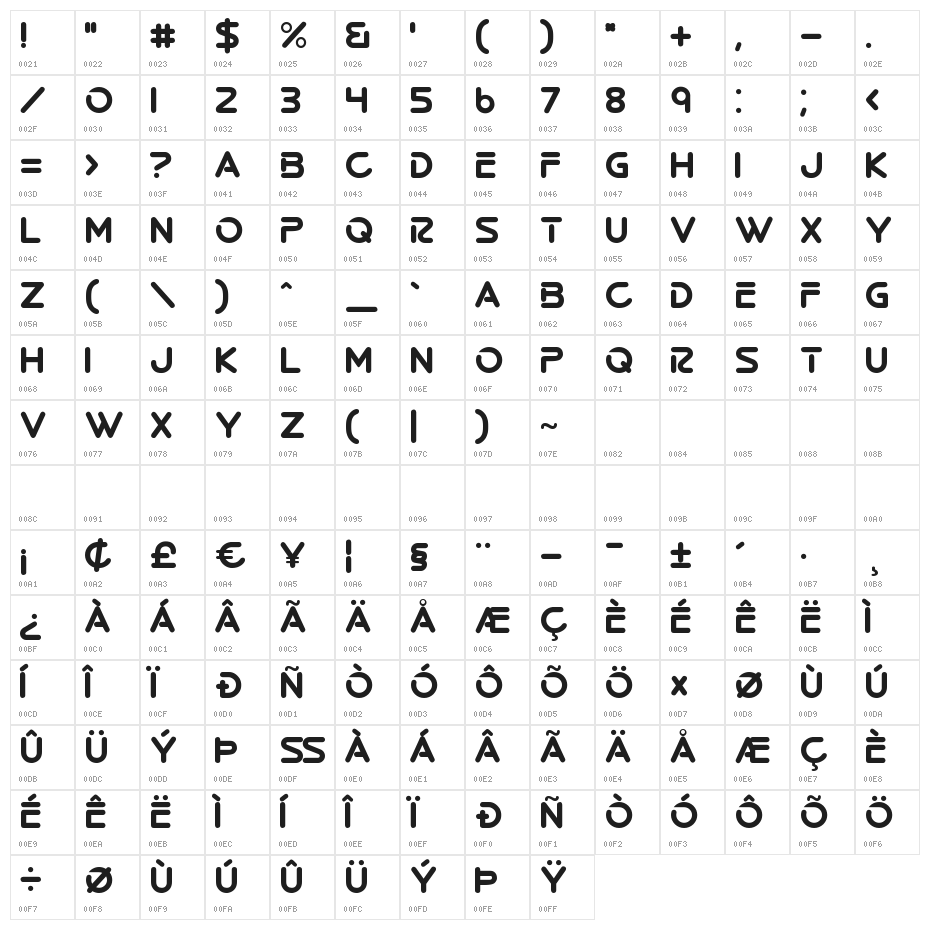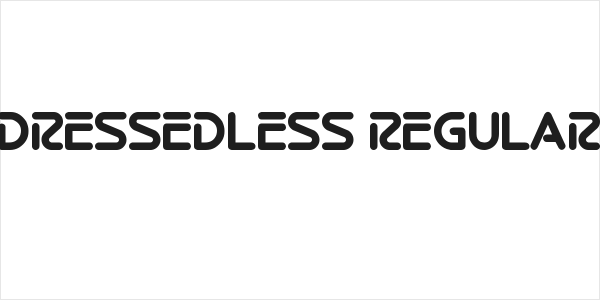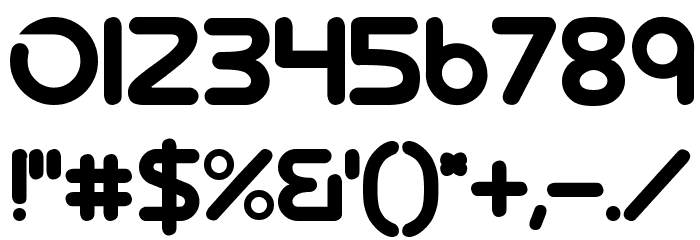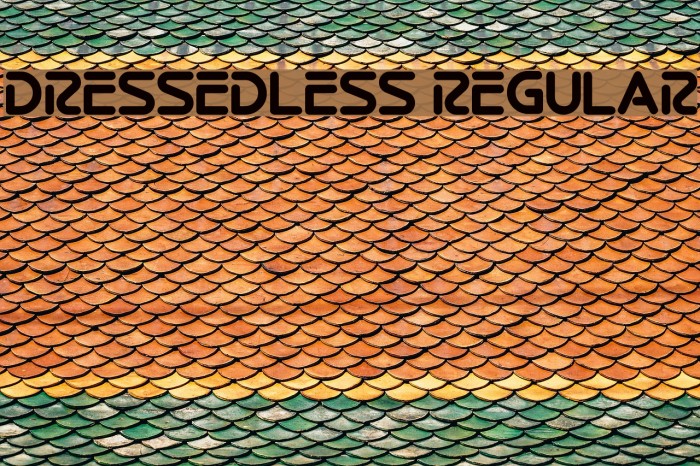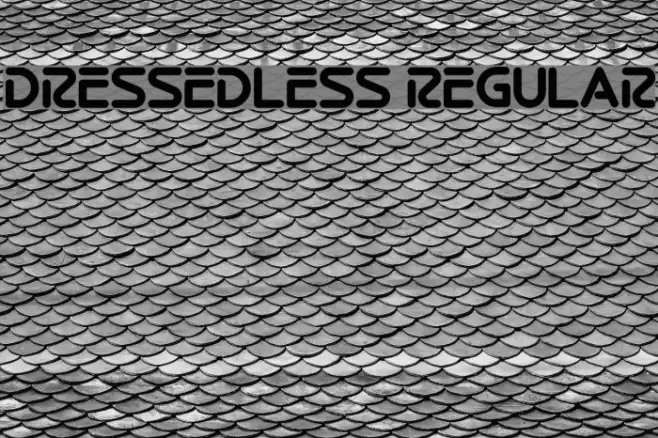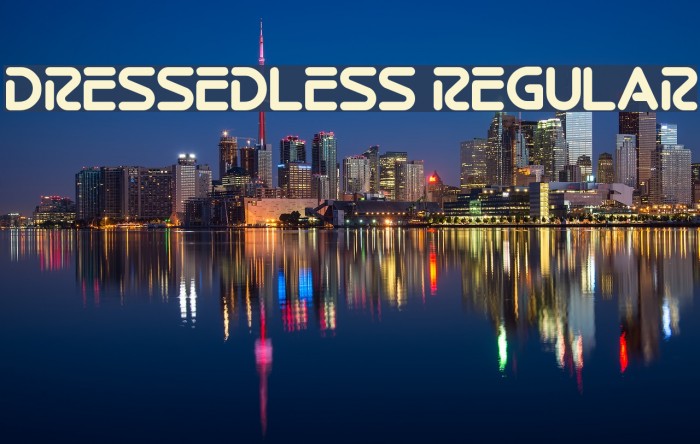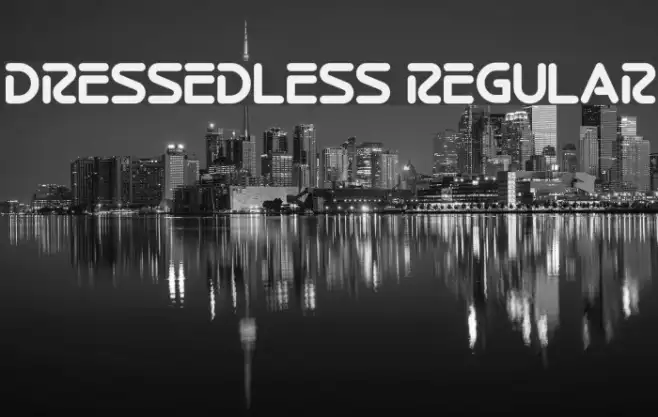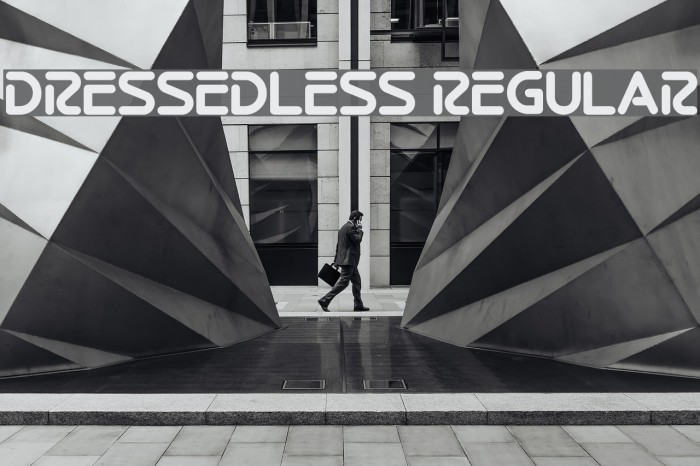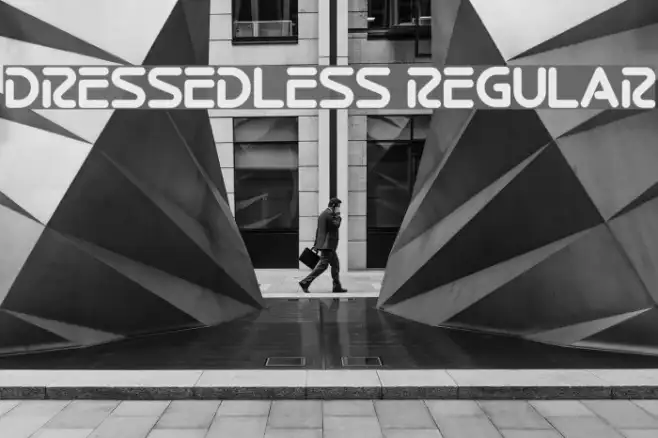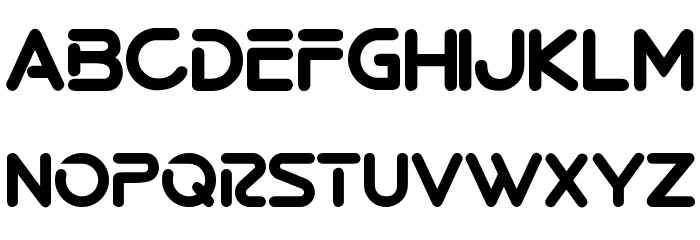
Dressedless Regular Font
Dressedless Regular Description
This font features a bold and modern design with rounded edges and a geometric structure. The characters are uniform in width, creating a cohesive and balanced appearance. The uppercase and lowercase letters share a similar style, enhancing readability while maintaining a unique aesthetic. The numbers and special characters are designed to match the overall look, making it versatile for various applications. The font's clean lines and contemporary feel make it suitable for digital and print media.